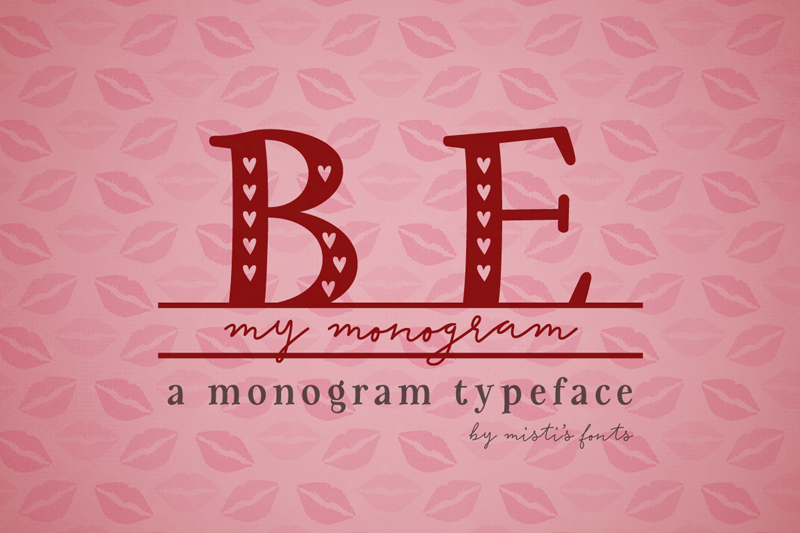
Be My Monogram is a heart-filled Valentine�s Day duo styled font. It is a great choice for creating personalized mugs, tote bags, keychains, wall prints, home d�cor and so much more! Terms Of Use and Commercial Licensing: https://mistifonts.com/be-my-monogram/ |